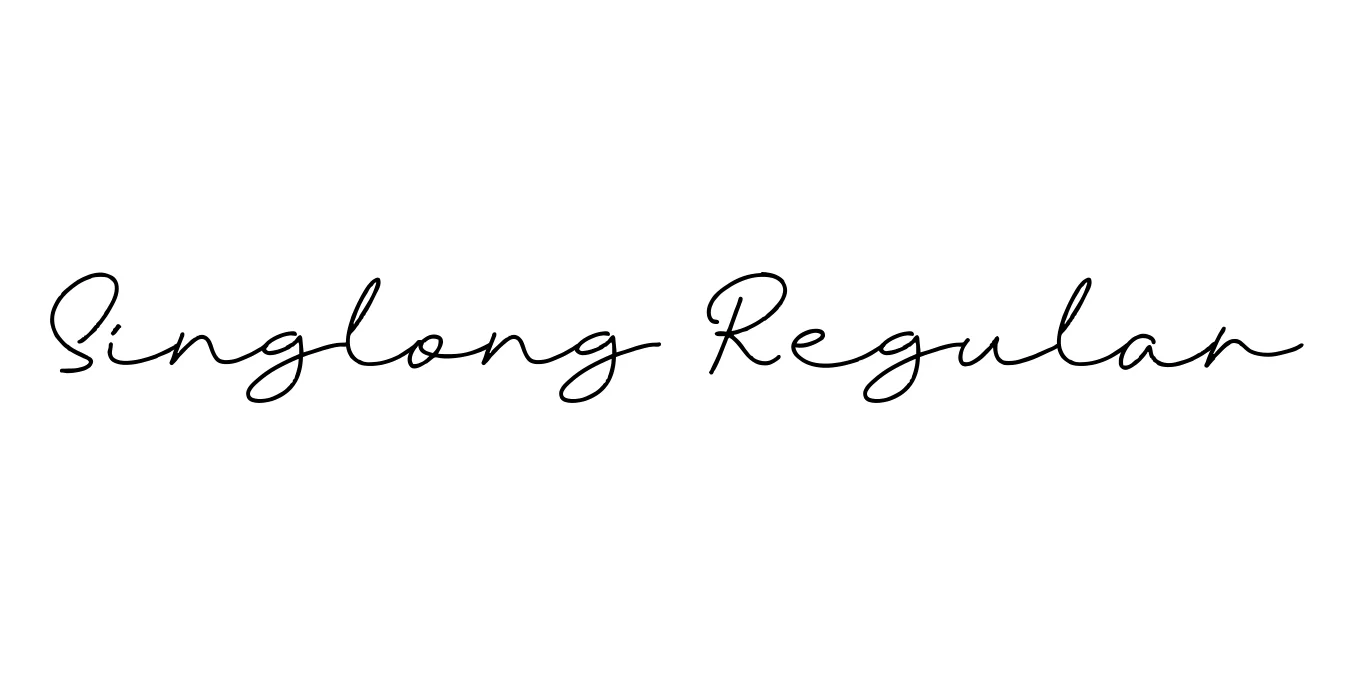
Singlong Regular
Designed by Creatype Studio
Singlong Regular is a sophisticated and fluid script font designed to capture the essence of natural handwriting with a contemporary flair. Its elegant strokes and balanced proportions create a rhythmic flow that is both eye-catching and highly legible. The font was meticulously crafted to serve as a versatile tool for designers who need to convey a sense of grace, warmth, and high-end aesthetic in their digital and print projects.
This typeface is particularly well-suited for branding and wedding stationery, offering a variety of stylistic alternates and ligatures that allow for a truly customized look. Whether it is being used for a luxury product label or a delicate invitation card, Singlong Regular provides a hand-drawn feel that elevates the overall design. Its timeless appeal makes it a go-to choice for fashion, lifestyle, and editorial design sectors.
Singlong Regular Best Uses
Ideal for creating unique, hand-crafted logos and visual identity systems for luxury brands.
Perfect for invitations, RSVP cards, and envelopes requiring a romantic touch.
Adds a premium and personal feel to beauty, cosmetic, or artisan product labels.
Great for crafting inspirational quotes and stylish headers for Instagram or Pinterest.